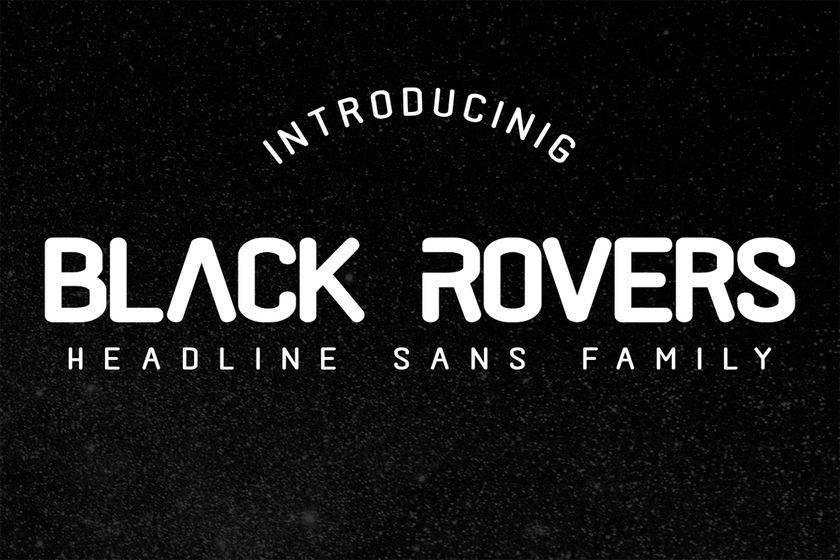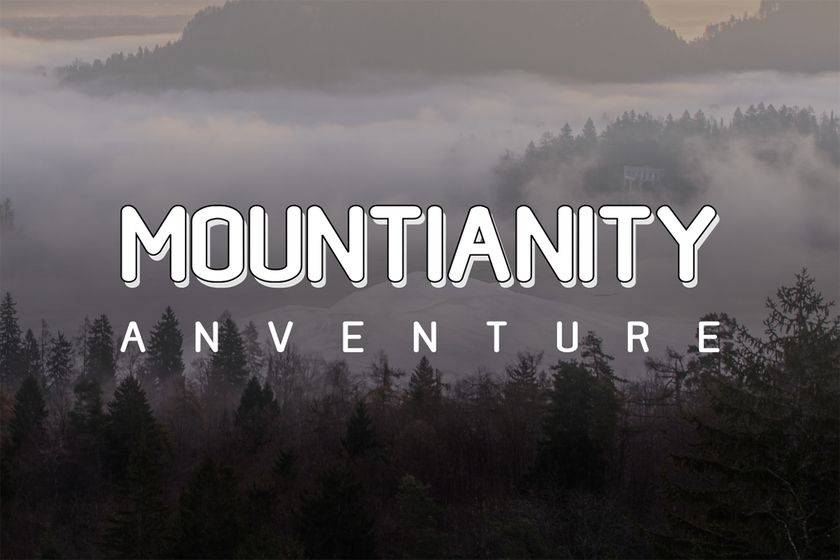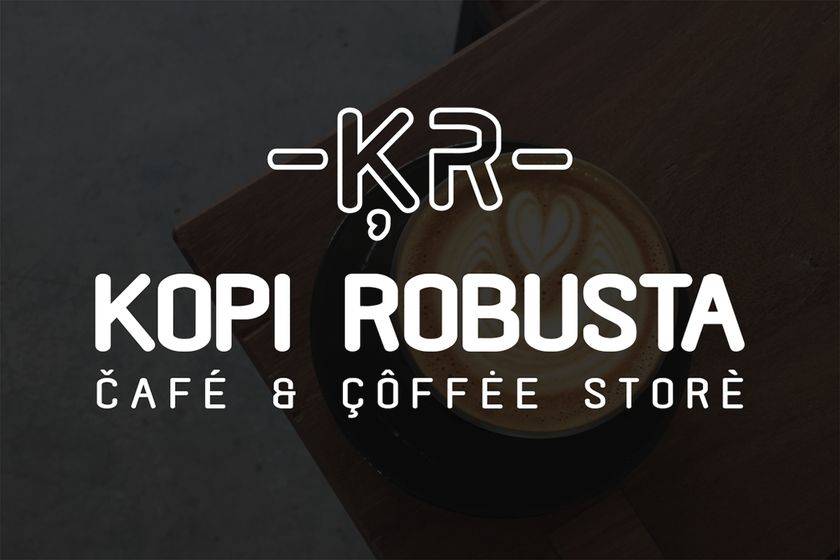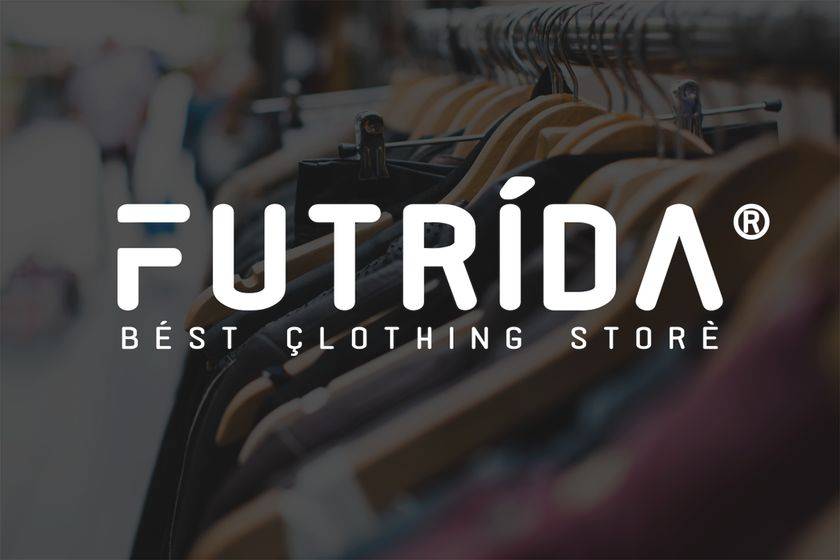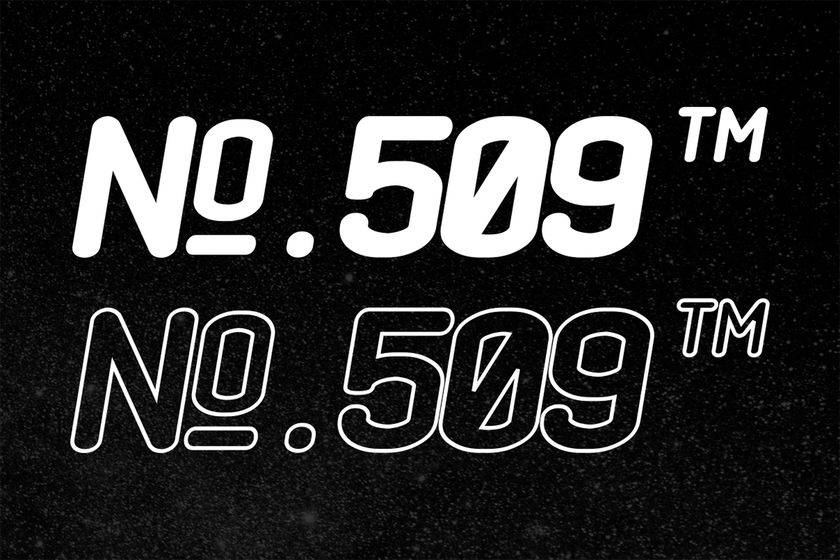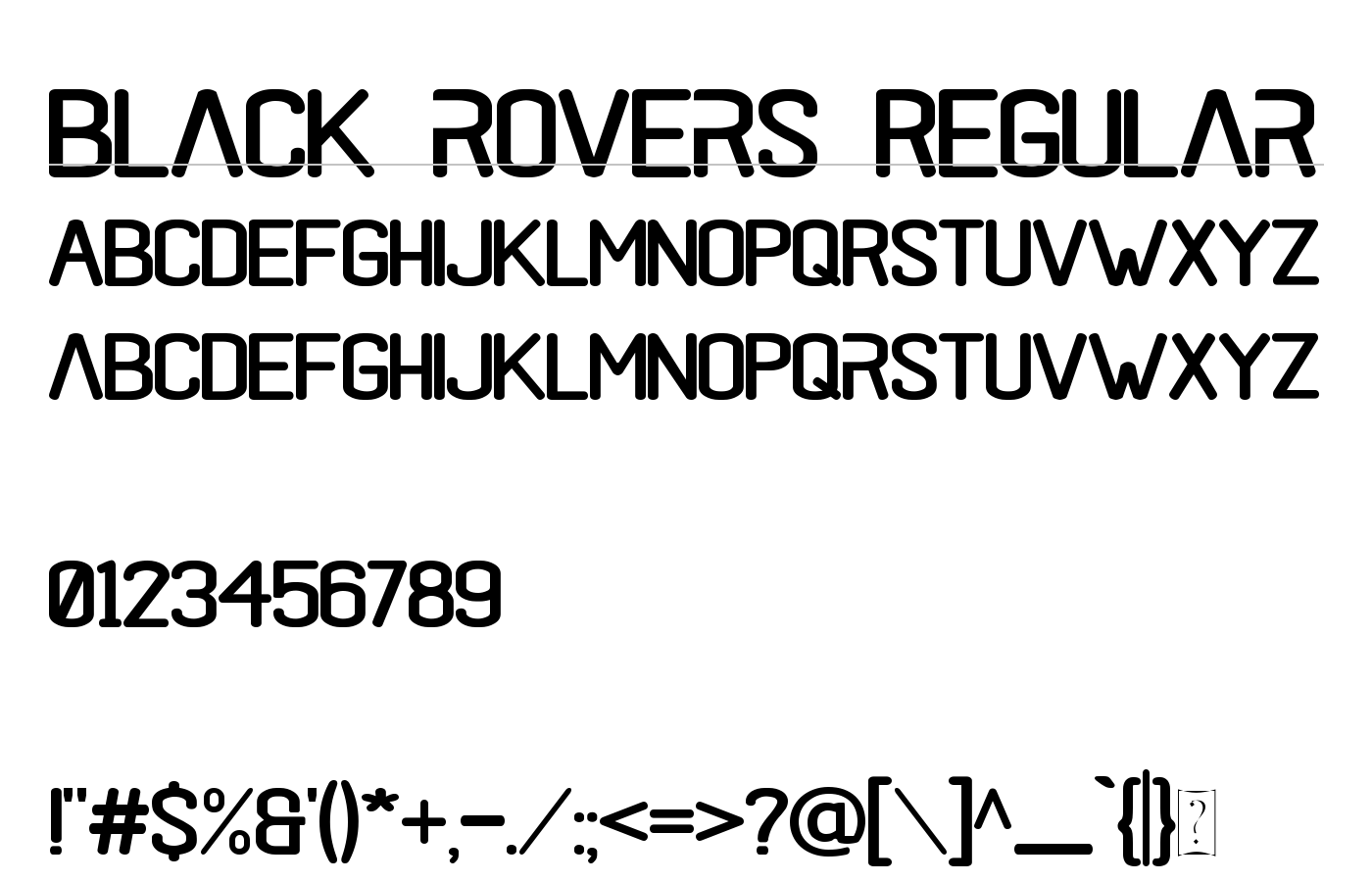
Black Rovers is a modern, geometric sans serif font with a clean and futuristic feel. Its rounded corners and consistent stroke weight give it a friendly yet technical personality, making it ideal for tech brands, headlines, and digital interfaces that seek a contemporary and approachable look. This font works well in logos and display use where clarity and a sleek style are important.
Black Rovers Font
About Black Rovers Font
| Font family | Black Rovers Font |
| Designer | Pandanwangi 2019 |